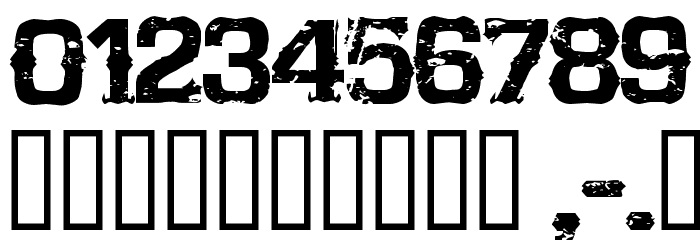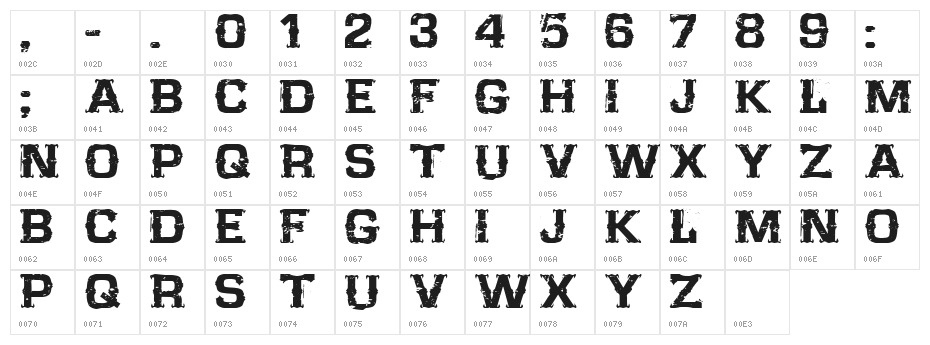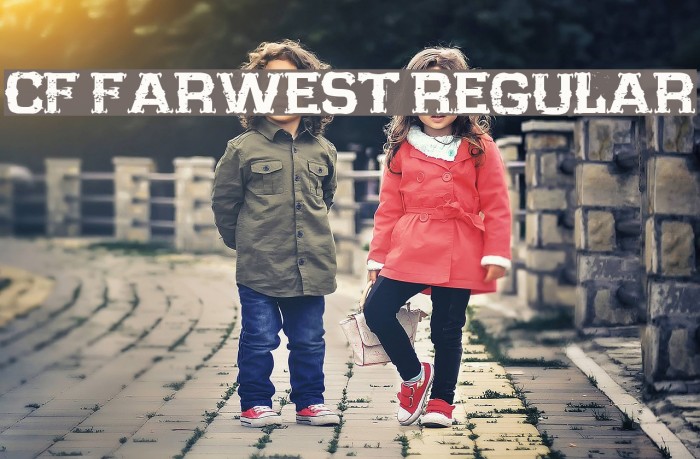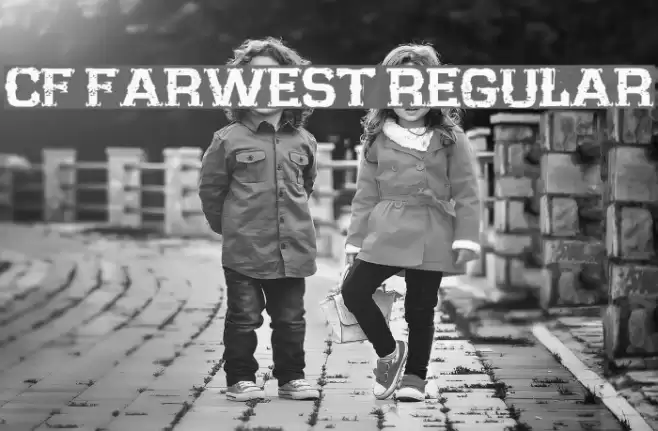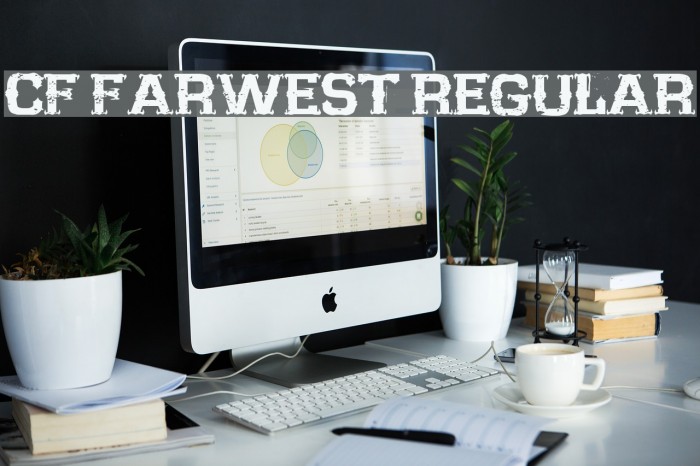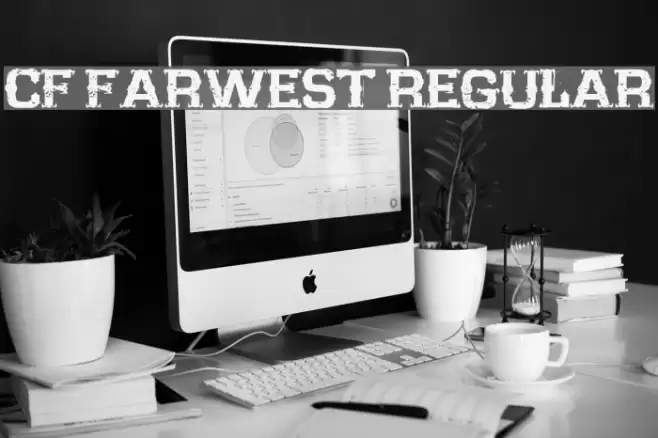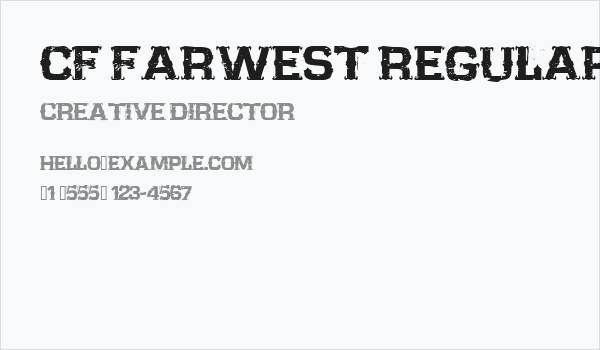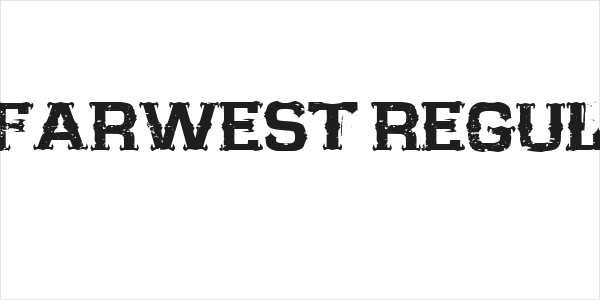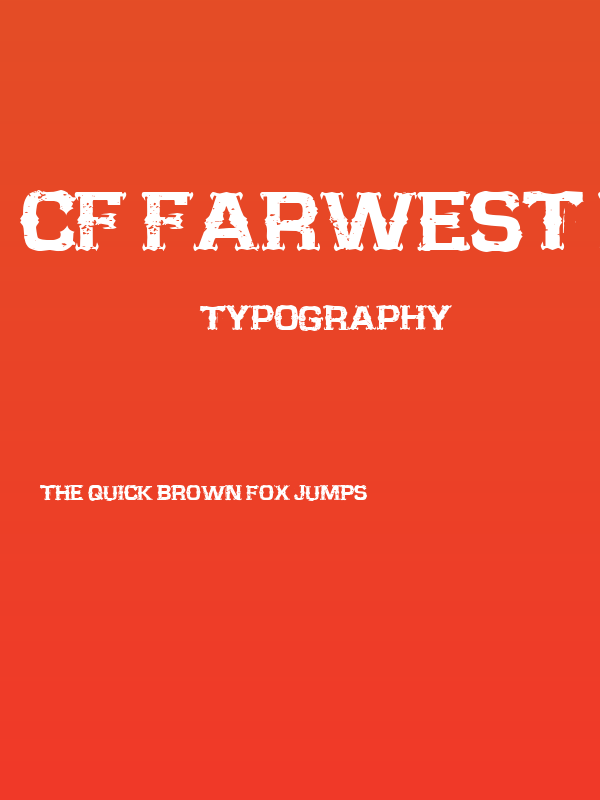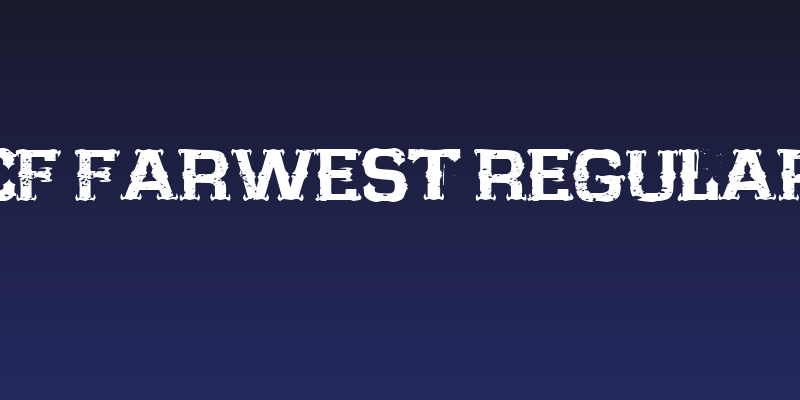
CF Farwest Regular Font
CF Farwest Regular Description
This font features a rugged, distressed style with a bold and impactful appearance. The characters are designed with a textured, weathered look, giving them a vintage and rustic feel. The uppercase letters are prominent and commanding, while the numbers maintain the same distressed aesthetic. The special characters follow suit, adding to the overall cohesive design. This font is ideal for projects that require a strong, bold statement with a touch of vintage charm.
| Proposed Projects | Ideal for posters, logos, branding, and any design needing a bold, vintage look. |